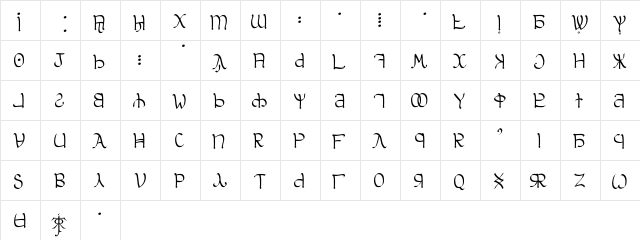
Aglab Regular
Design Context for Aglab Typeface
Aglab is a composed and adaptable typeface that performs quietly and consistently across a wide range of design contexts.